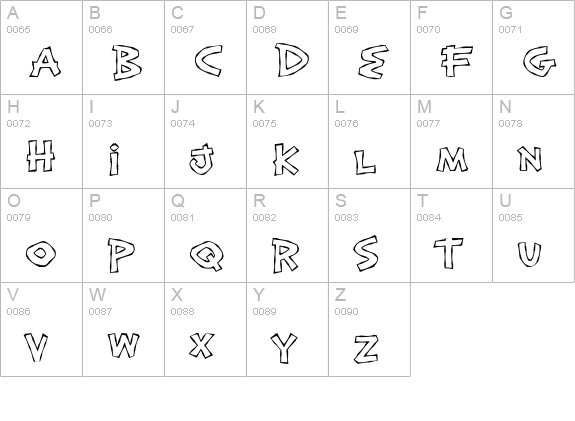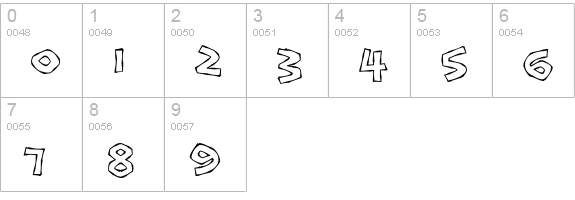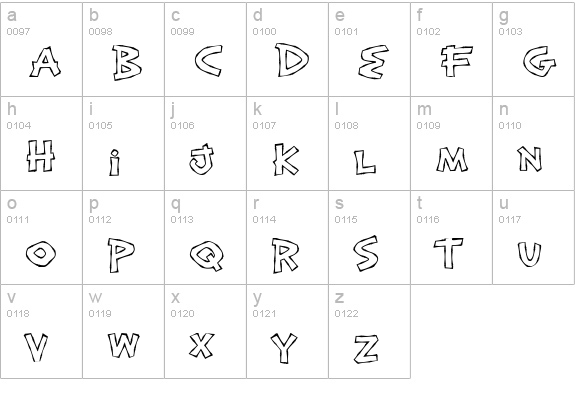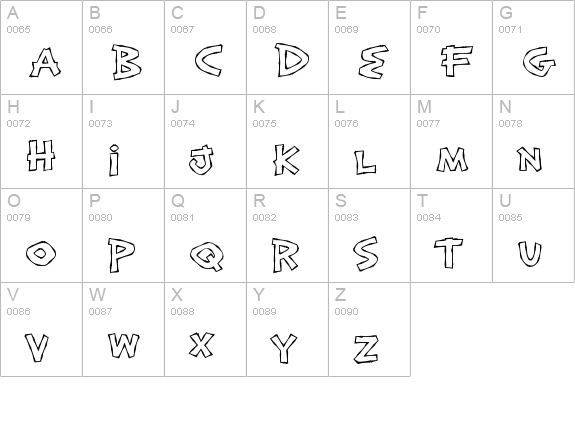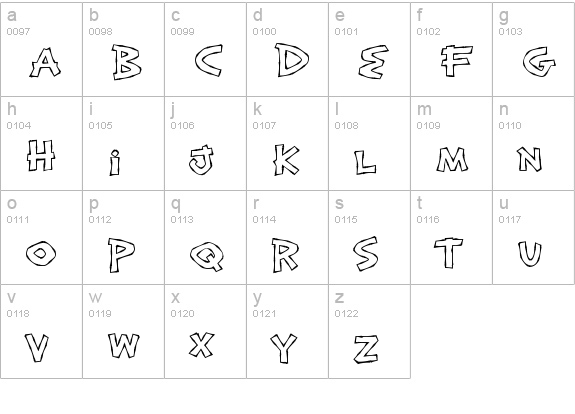
Exotic Island BTN Bamboo Out Font Details
Introducing Exotic Island BTN Bamboo Out, a stunning and unique font that exudes a sense of adventure and tropical vibes. This exotic typeface features intricate bamboo-inspired details that give it a truly one-of-a-kind look. Perfect for adding a touch of exotic flair to your projects, whether you're designing travel posters, party invitations, or branding materials. What makes Exotic Island BTN Bamboo Out even more appealing is that it is available for free download at FontsMarket.com. Yes, you read that right - this beautifully crafted font can be yours at no cost, making it a must-have addition to your font collection. Don't miss out on the opportunity to elevate your designs with this free and captivating typeface. Download Exotic Island BTN Bamboo Out now and let your creativity run wild!